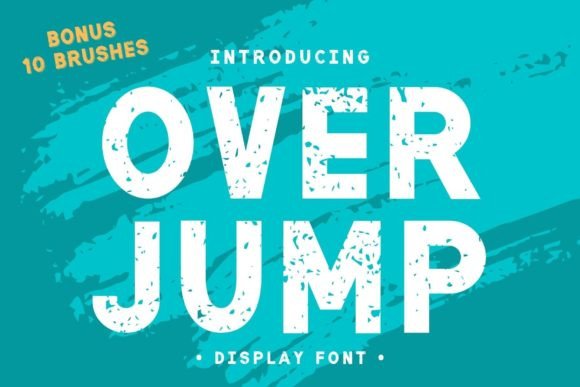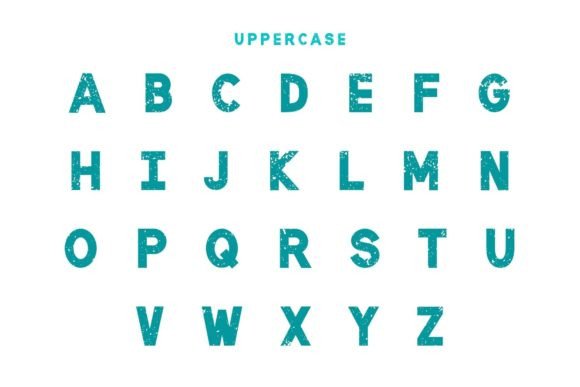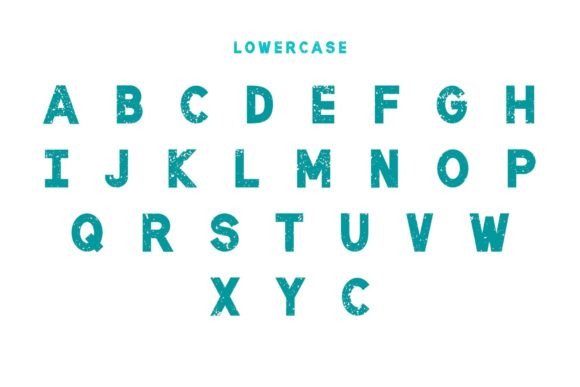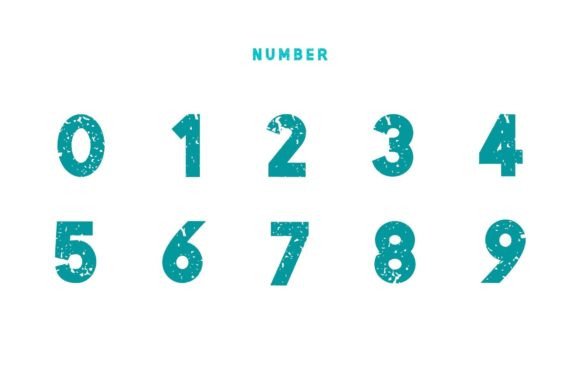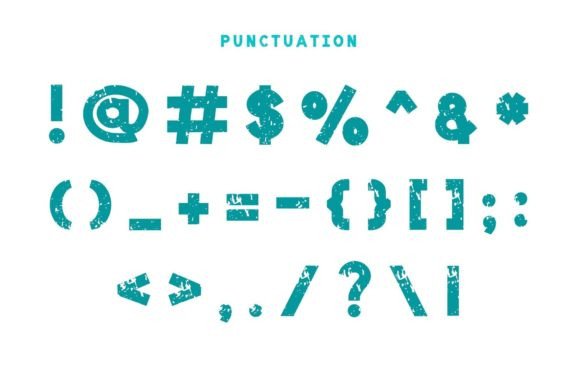
Over Jump is a unique college grunge decorative font. It embodies playfulness and authenticity and is the perfect choice for various projects such as blog posts, logos, branding, ads, invitations, greeting cards, planners, photo albums, decorations, and much more. Add it to any of your designs, and enjoy the results!
Over Jump Font